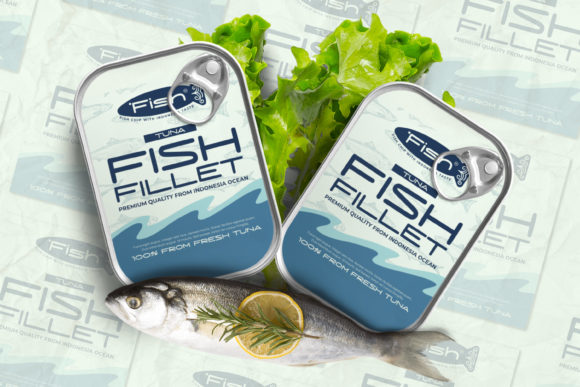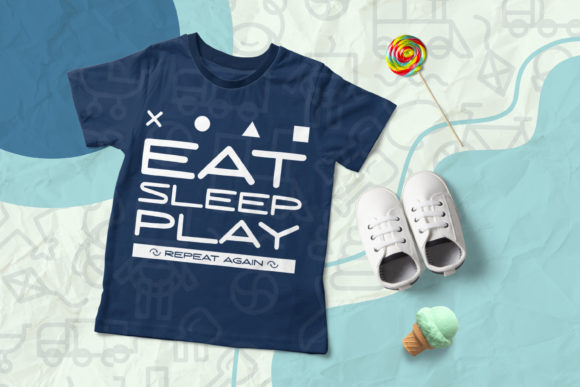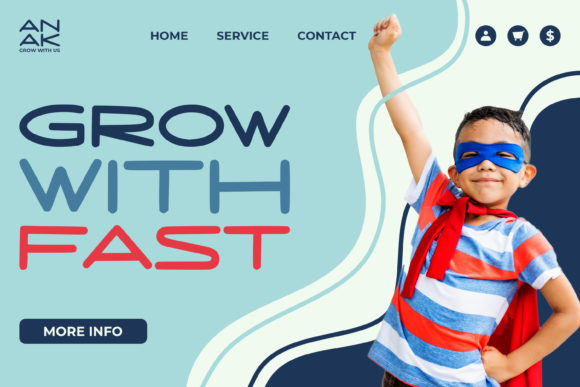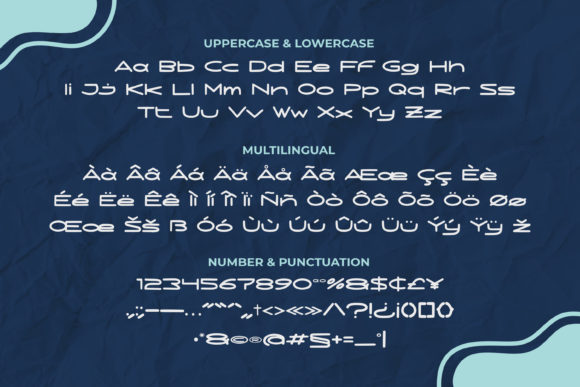
Introduction to Non Stop Font
Remember that moment when you were brainstorming ideas for your creative project and suddenly, everything clicked? You found the perfect combination of colors, textures, and typography that transported your design to a new level. For many designers, the right font can be the missing piece that sets their project apart. And that’s exactly what we’re excited to introduce – the Non Stop Font, a charming display font that will take your designs on a magical journey.
This modern, yet whimsical font is a valuable addition to any designer’s toolkit, offering a fresh and playful touch to your creative projects. With its high-quality design and transparent background, it’s the perfect design resource for anyone looking to add a bit of personality to their work.
Key Features of Non Stop Font
- High-quality design resource for creative projects, offering a unique and modern aesthetic.
- Designed to be highly legible and versatile, with a wide range of font sizes and styles available.
- Perfect for use in various creative projects, including logos, graphics, and digital designs.
Honest Review: Non Stop Font
I recently came across the Non Stop Font and was excited to give it a try for my current creative project. As a designer, I’m always on the lookout for high-quality design resources that can elevate my work.
The Non Stop Font is a great addition to any design toolbox, offering a unique and modern aesthetic that’s perfect for creative projects. What works well with this font is its versatility – it’s suitable for both digital and print designs, and can be used for a variety of purposes, from logos to typography.
Here are some of the key features that I appreciate about the Non Stop Font:
- Works well with both digital and print designs
Overall, I’m impressed with the Non Stop Font and would definitely recommend it to fellow designers. It’s a great addition to any design resource collection, and can be a valuable tool for creating high-quality designs.
Tips for Getting the Most Out of Non Stop Font
Experiment with different font sizes, colors, and styles to create unique and eye-catching designs. Use the font in combination with other design elements, such as images or graphics, to add depth and interest to your creative project.
The Non Stop Font is ideal for a variety of creative projects, including:
- Logos
- Typography-based art
- Documents
Compared to Non Stop Font, Font Awesome offers a more extensive collection of icons, including social media logos and common symbols. While Non Stop Font is known for its transparent background, Font Awesome offers more versatility in terms of customization and design flexibility.